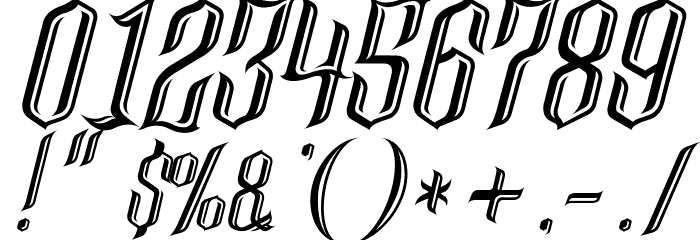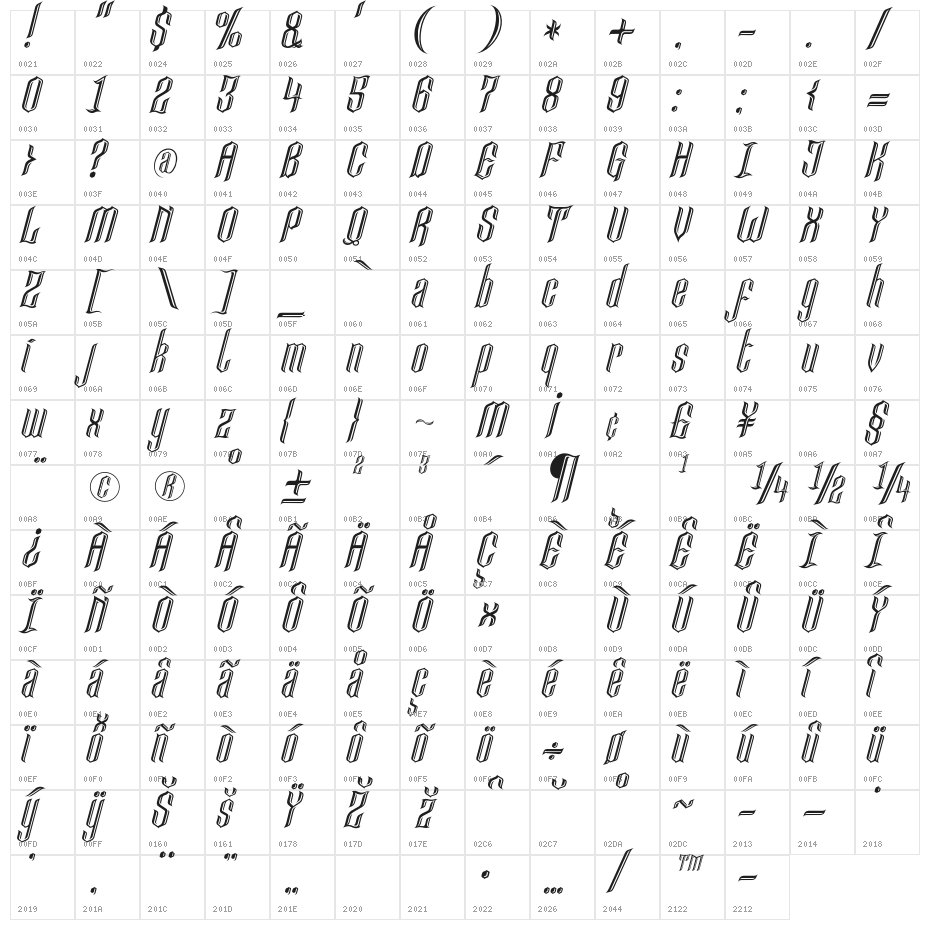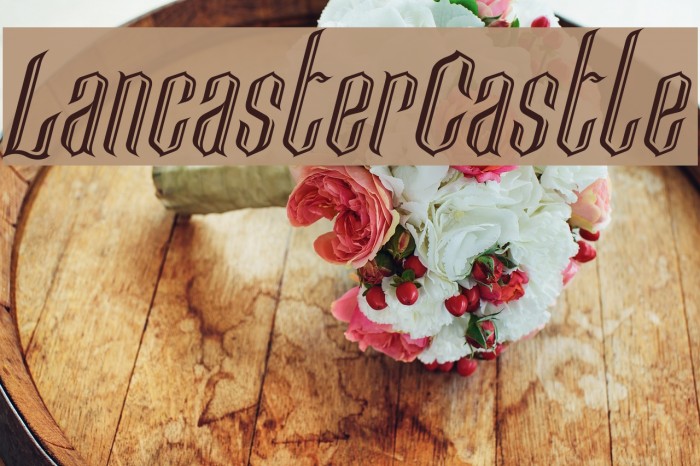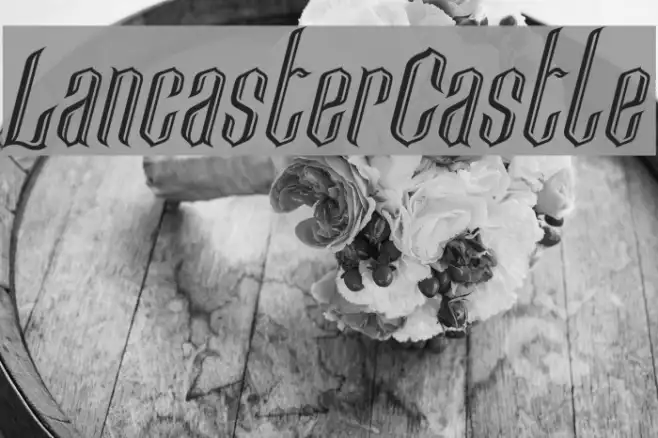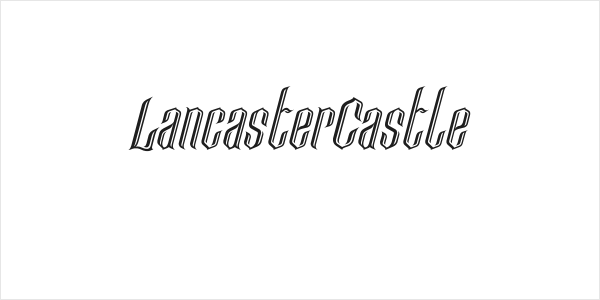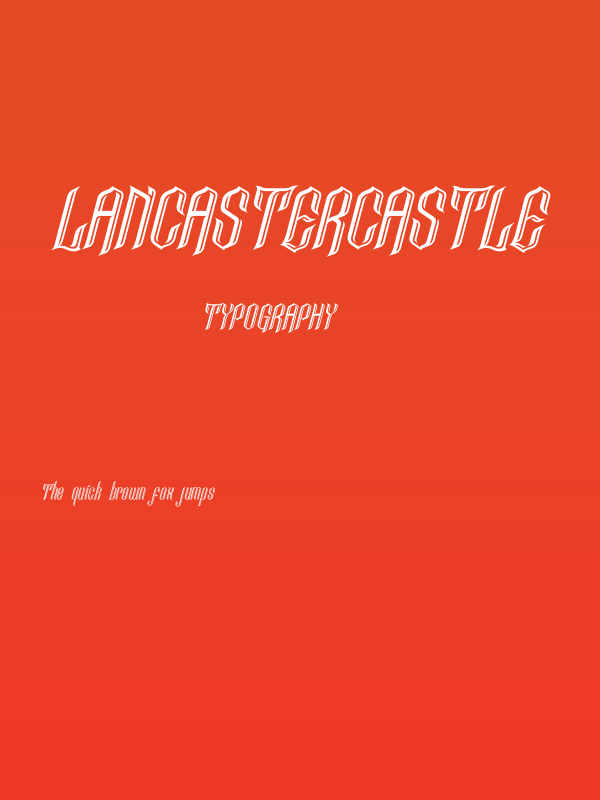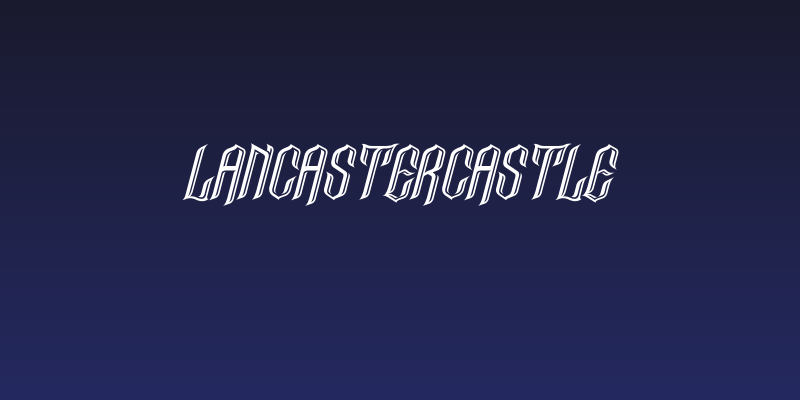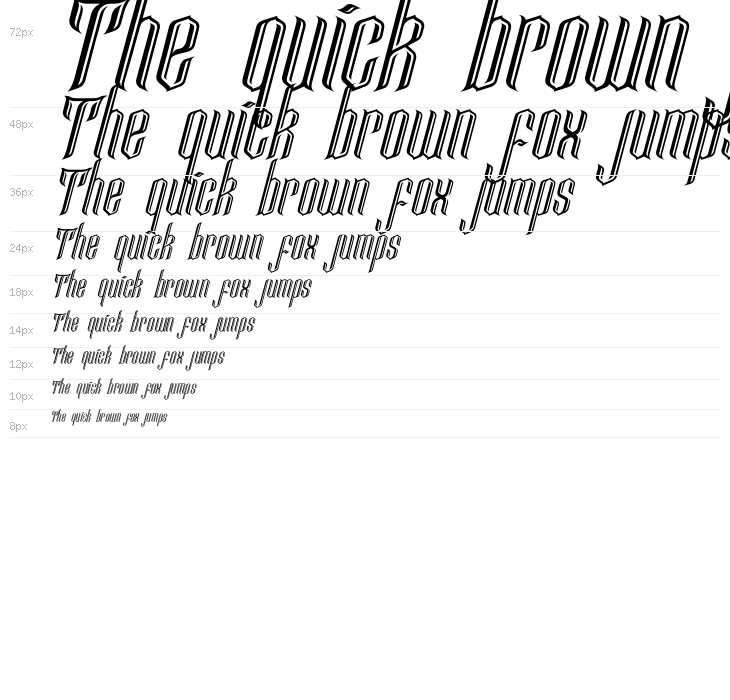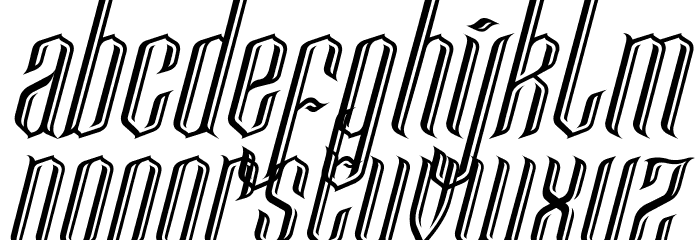
LancasterCastle Font
LancasterCastle Description
This font features a bold and dramatic style with sharp, angular lines and a distinct blackletter influence. The uppercase and lowercase letters exhibit a strong vertical emphasis, with elongated strokes and pointed serifs that give it a gothic appearance. The numerals and special characters maintain this stylistic consistency, adding to the font's cohesive look. The overall design is reminiscent of medieval script, yet it incorporates modern elements that make it suitable for contemporary use. The font's intricate details and high contrast between thick and thin strokes create a striking visual impact.